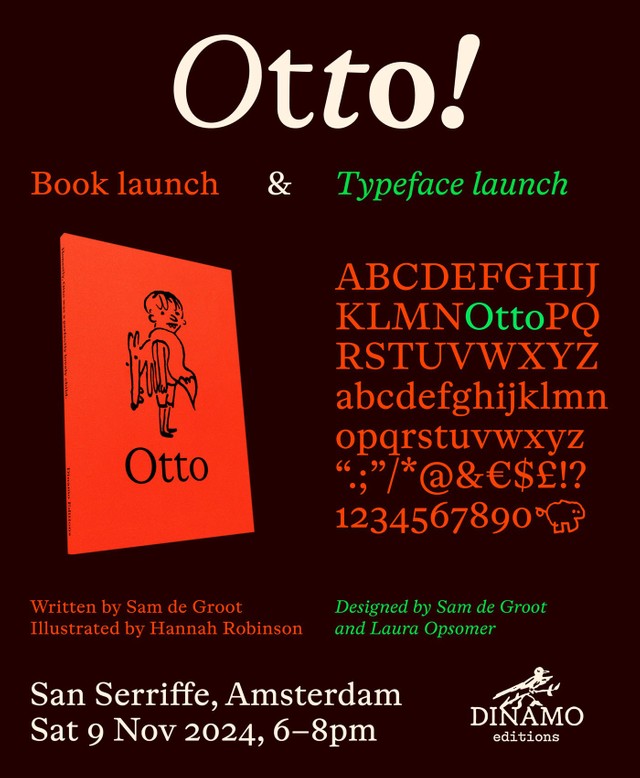
Double trouble in the Netherlands —
We’re inviting you today to a two-part launch for two intertwined things: a book and a typeface. We’ll be celebrating in Amsterdam at San Serriffe—a serif-friendly bookstore—on Nov. 9 at 6pm and hope to see you there!
Otto, the book, is a fable of modern parenting, a story about a perfectly lovely child with a bad temper. A children’s book for adults and Aesopian Bildungsroman of sorts, it was written and designed by Sam de Groot and illustrated by the London-based illustrator Hannah Robinson. It’s the first official articulation of Dinamo Editions, the publishing imprint run by Madeleine Morley and Simon Merz. Get in touch if you’d like to stock the title in your shop—otherwise it’ll be on sale from next week on! Children may proceed with caution.
Otto, the typeface, is a cheerful text font with a sturdy, wide rhythm and beautifully lilting italics. You’ll be hearing more about it in this newsletter very soon. ABC Otto was designed by Sam de Groot and Laura Opsomer Mironov, and engineered and published by Dinamo Typefaces.
For the launch, Sam will read from the book, and our co-founder Fabian will be in conversation with ABC Otto designers Laura and Sam for some sort of casual panel.
Dinamo’s co-founders Johannes and Fabian briefly overlapped in Amsterdam around 12 years ago (one studying, the other interning), where they also met young Sam, who was already spiralling (upwards) into the life of the Netherlandish book maestro he is today. Attending book launches at San Serriffe was already a thing back then, and we’re happy to come back home for this special occasion.
ABOUT THE TEAM
Sam de Groot works as a freelance graphic designer in Amsterdam, mostly in close collaboration with artists, publishers, and galleries. Under the imprint TRUE TRUE TRUE he has released books and music, often in collaboration with artist Paul Haworth. He has taught typography at the graphic design department of the Gerrit Rietveld Academie since 2011.
Laura Opsomer Mironov is an artist, type designer, and calligrapher with an MA in Typography from École Estienne. Fascinated by theater and cinema, she began working on film credits and theater titles, which led her to reconnect with her desire to act. She’s made a number of short films at the Fémis film school, and acted in several French theaters.
Hannah Robinson is an illustrator and cartoonist based in London, with a degree in art history from Edinburgh University. Her clients include The New Yorker, The New York Times, The Washington Post, The Guardian, and Hermès.